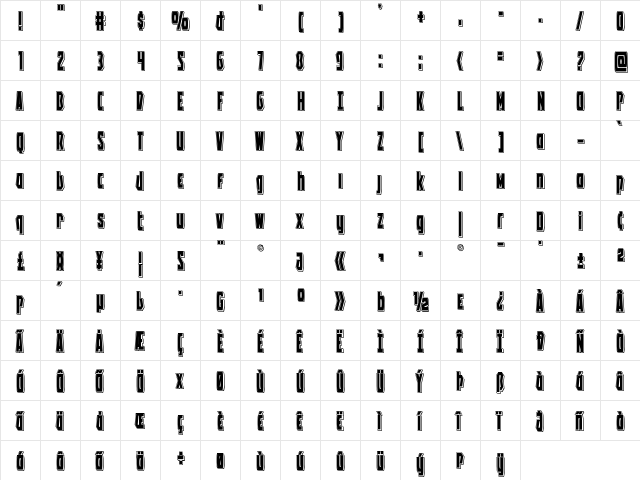
Battleworld Punch Regular
Design Context for Battleworld Punch Typeface
Battleworld Punch is a composed and adaptable typeface that performs quietly and consistently across a wide range of design contexts.